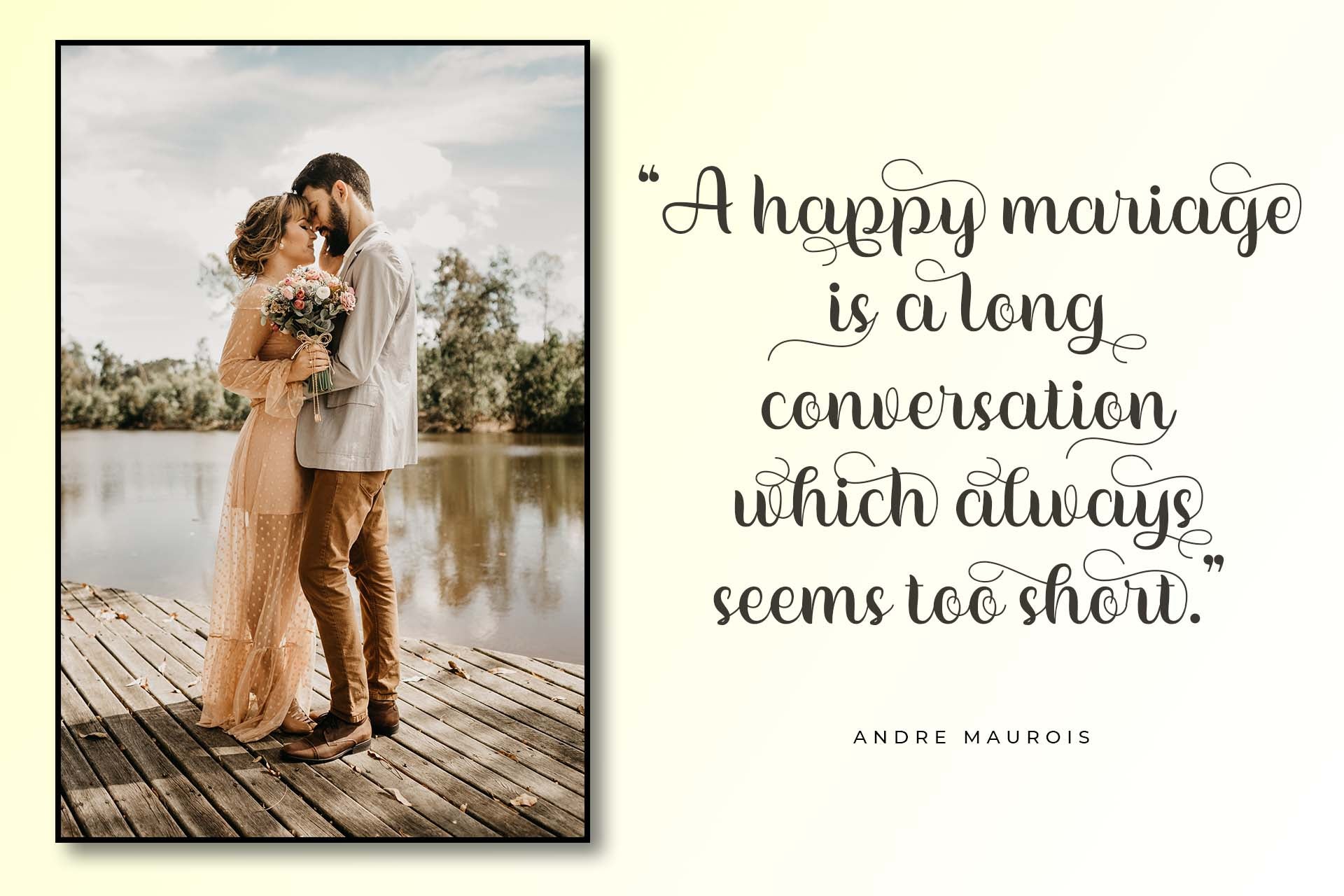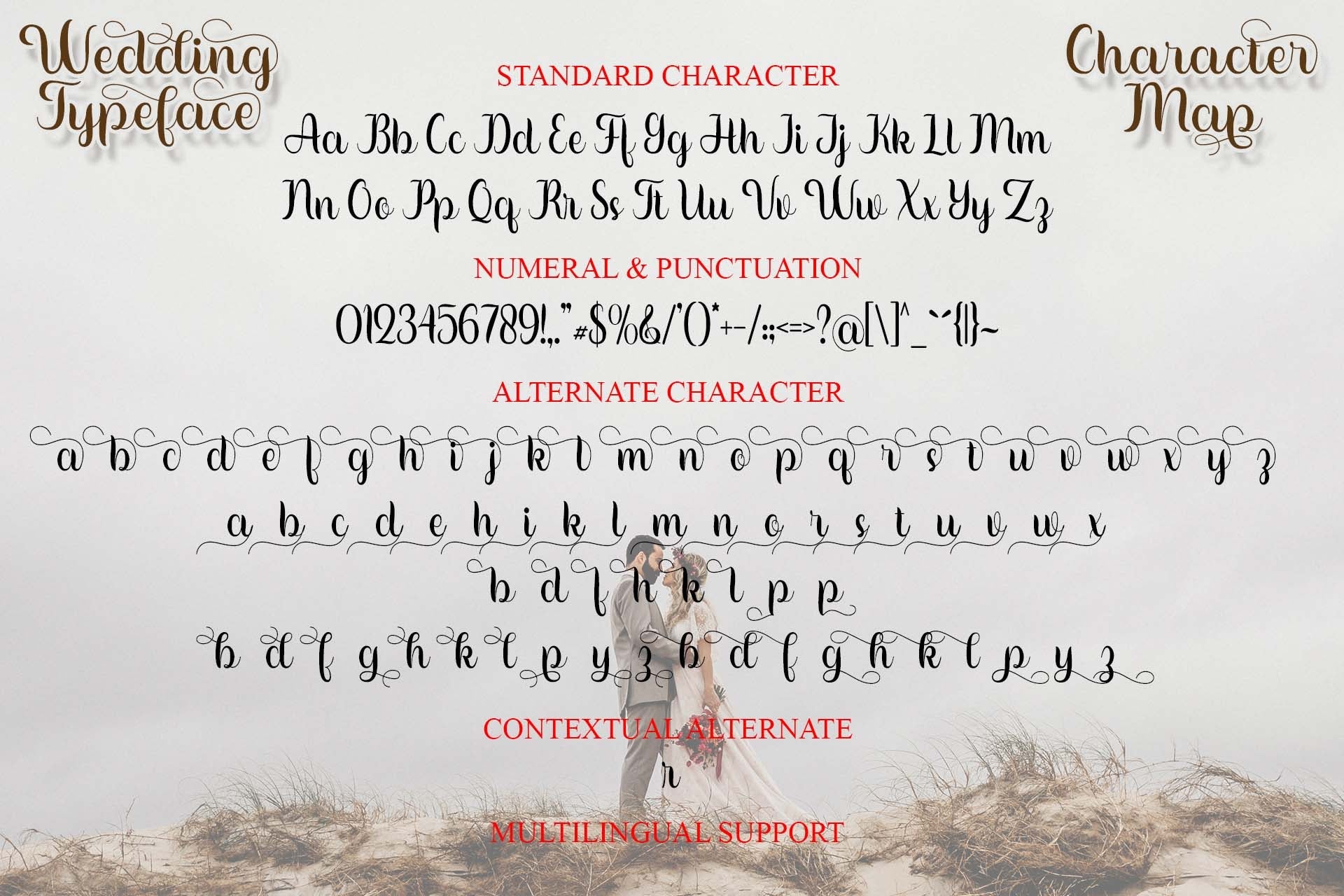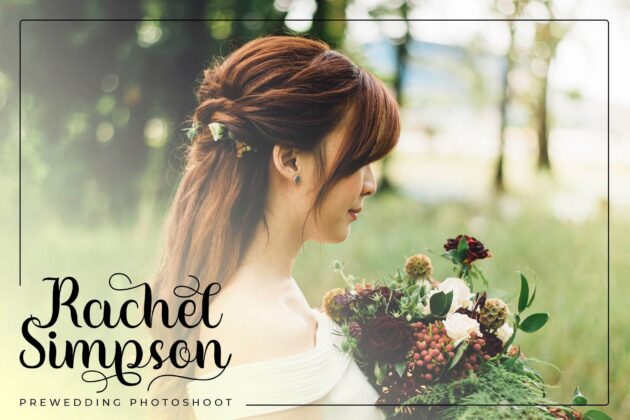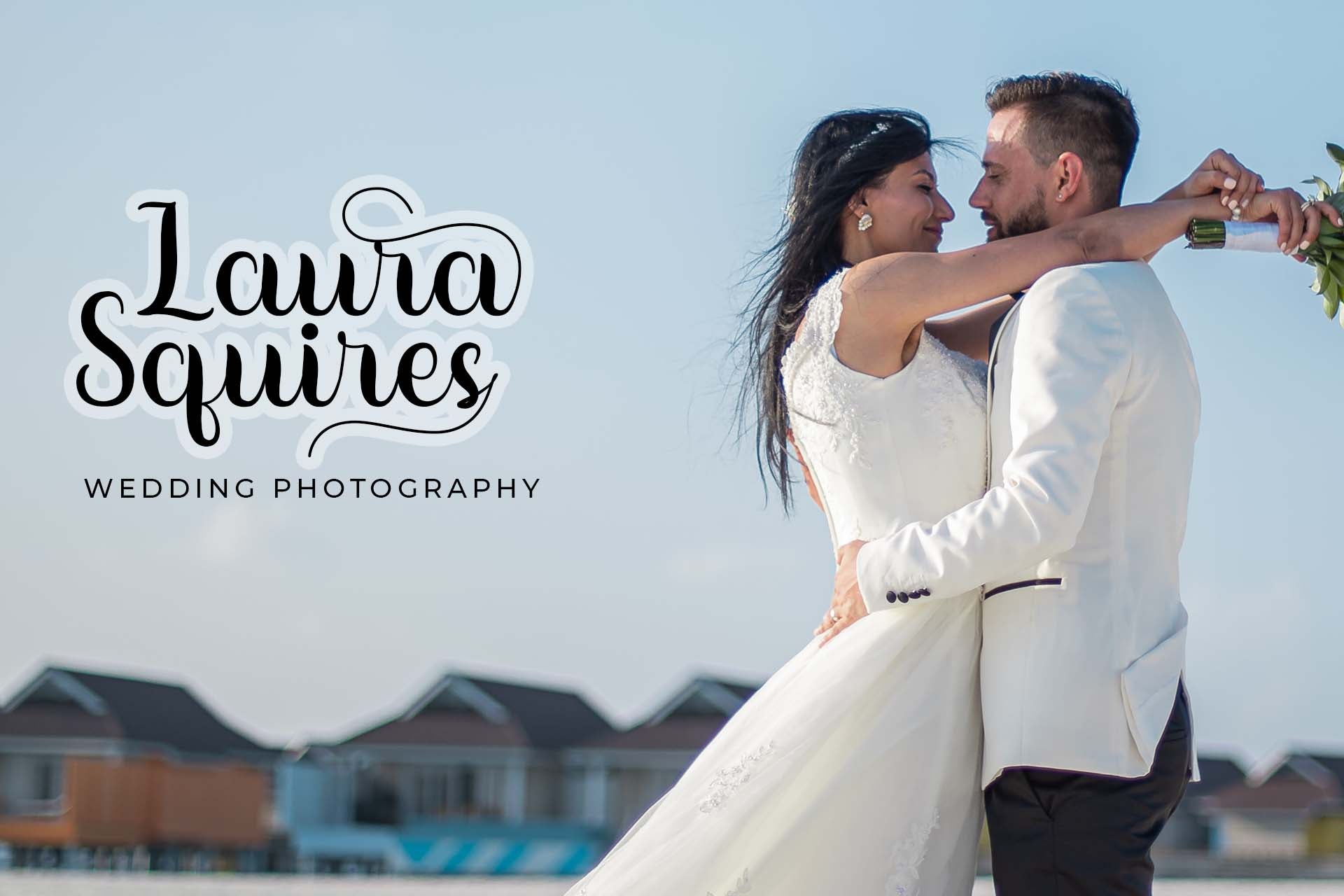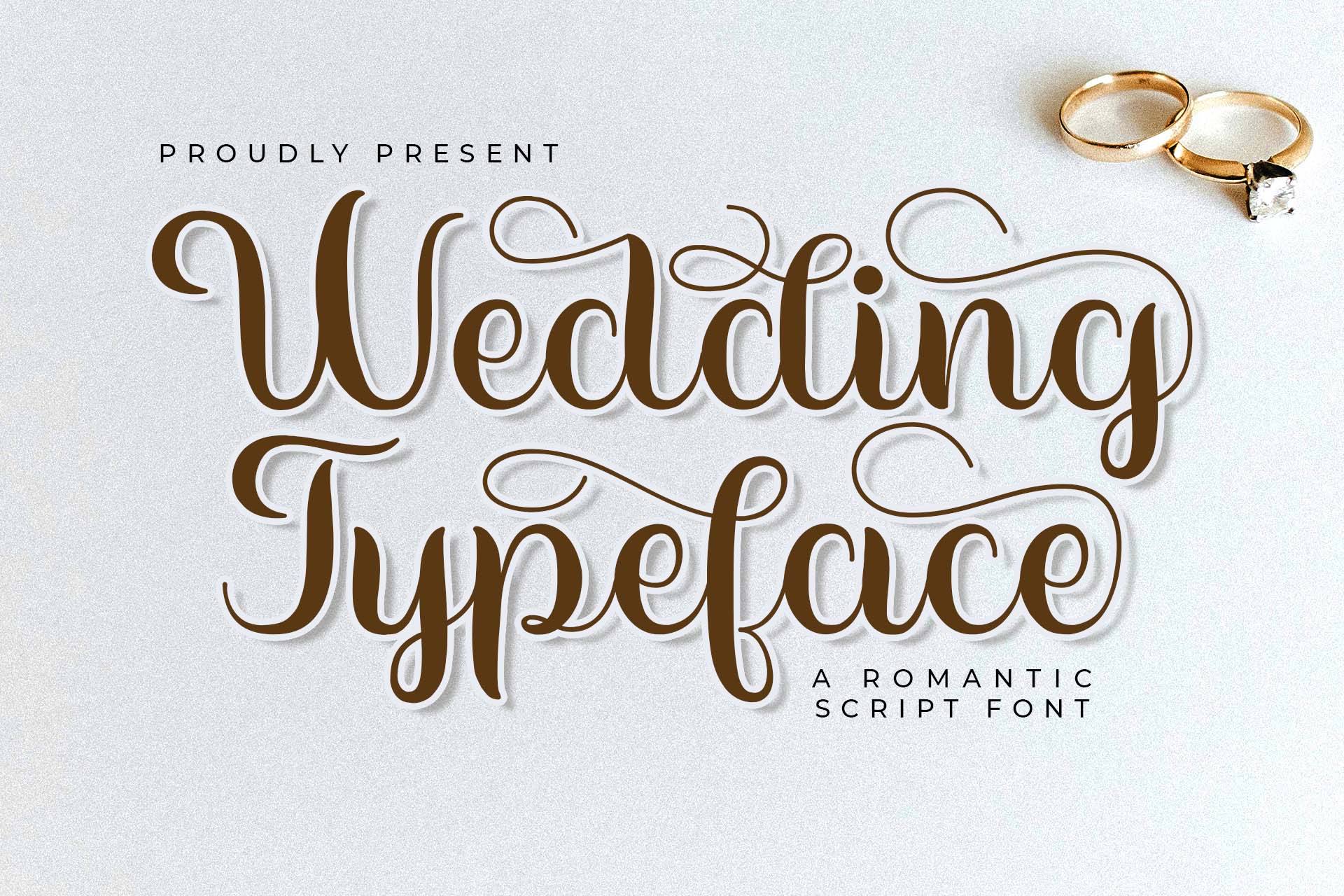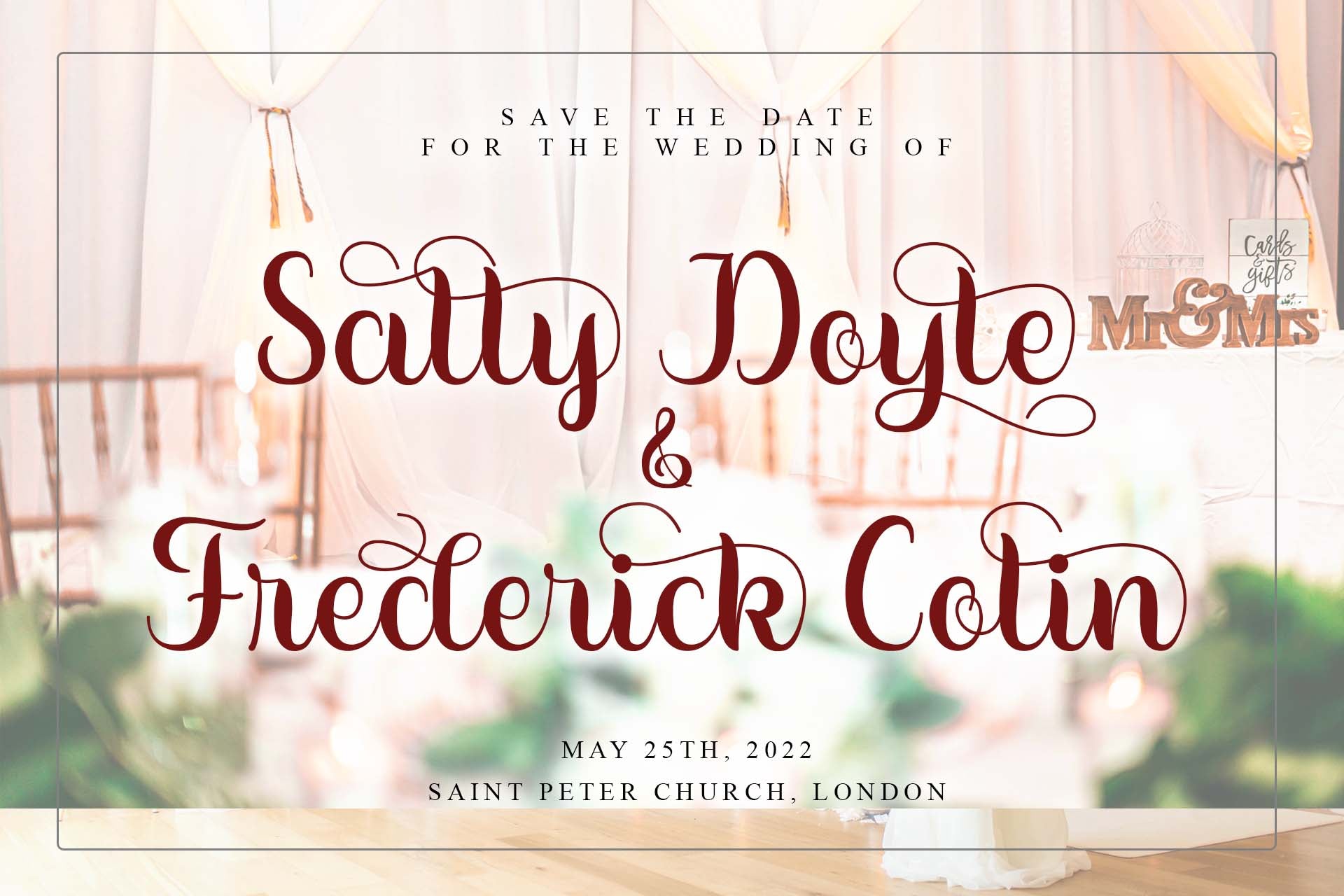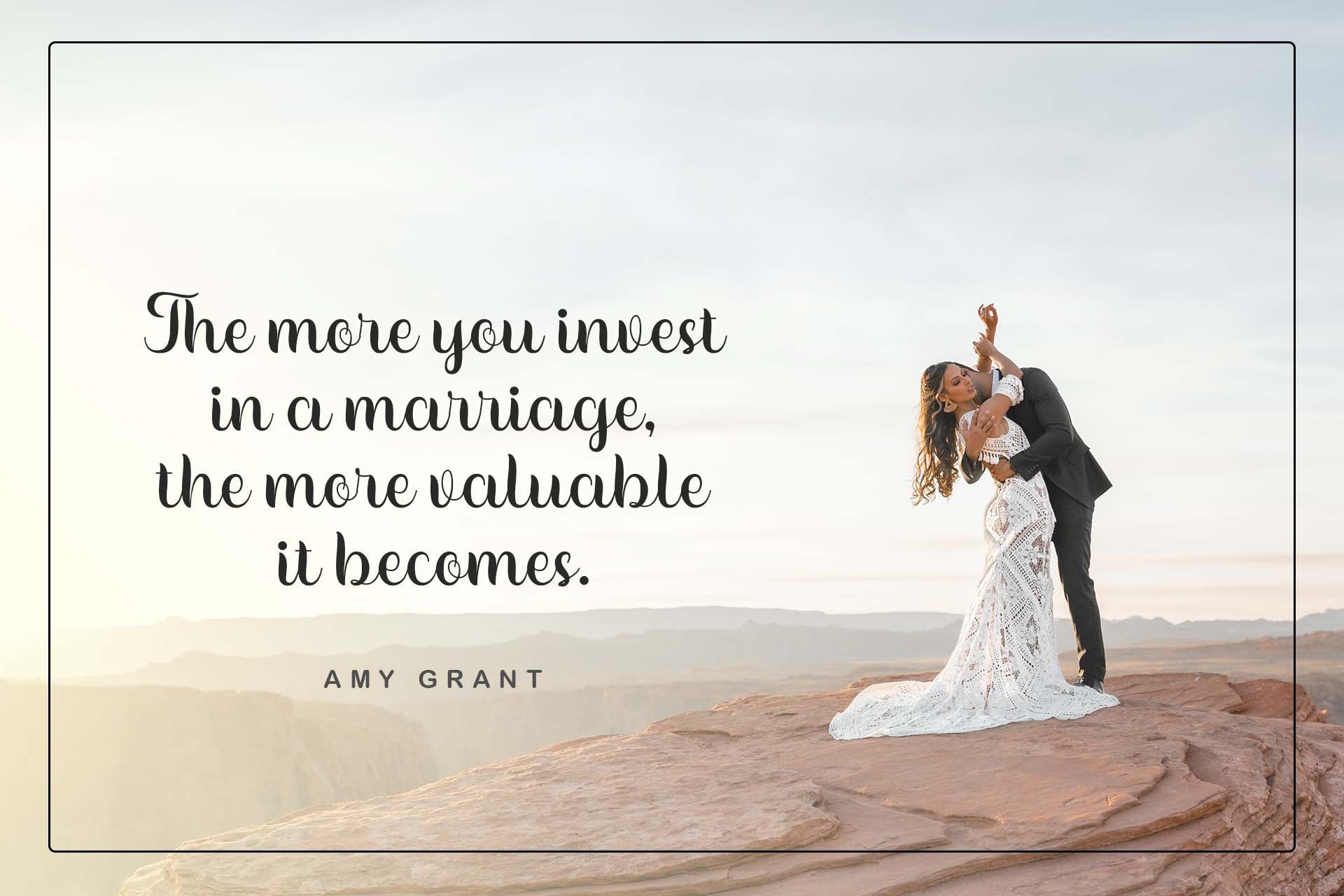
HomeScript FontsWedding Typeface Script Fonts Wedding Typeface FacebookTwitterPinterestWhatsApp 1 of 8 ... ... ... ... ... ... ... ... About Wedding Typeface is a distinct graceful script font. Fall for its ravishing style and use it to create gorgeous designs. This font is PUA encoded which means you can access all glyphs and swashes with ease! DOWNLOAD NOW People also explored School Font Minimalist Font Bruship Font Santero Modern Font Aestovid Font Etania & Ezra Font Abhyaksa Font Scribbler Pen Font Maulidya Font 54 0 TagsWedding Typeface Previous articleSainthickNext articleHilda Boby Script LEAVE A REPLY Cancel reply Comment: Please enter your comment! Name:* Please enter your name here Email:* You have entered an incorrect email address! Please enter your email address here Website: Save my name, email, and website in this browser for the next time I comment. Personal Use Free Fribash Personal Use Free Read more about this font Adelia Font Personal Use Free Read more about this font Bettari Personal Use Free Read more about this font Metal Lord Personal Use Free Read more about this font BLOG Free vs Paid Fonts: Why Investing in Premium Fonts Is Worth It Free vs Paid Fonts: Why Premium Fonts Are Worth It in 2025 The debate of free vs paid fonts continues in the design world. While... To increase your work productivity, choose the most readable fonts. Best Fonts for T-Shirt Design – Top 2025 Picks Best Fonts for YouTube Videos: Make Your Thumbnails Stand Out